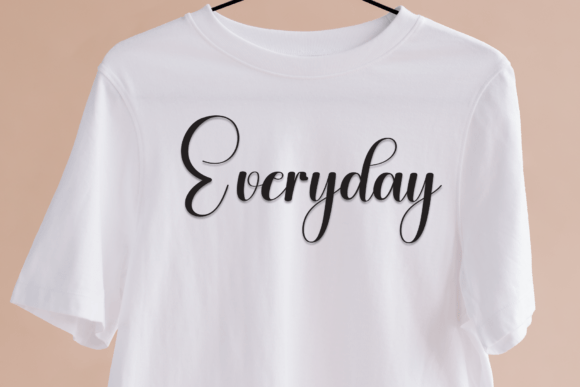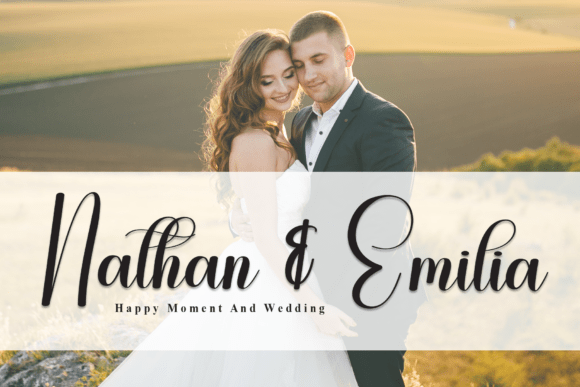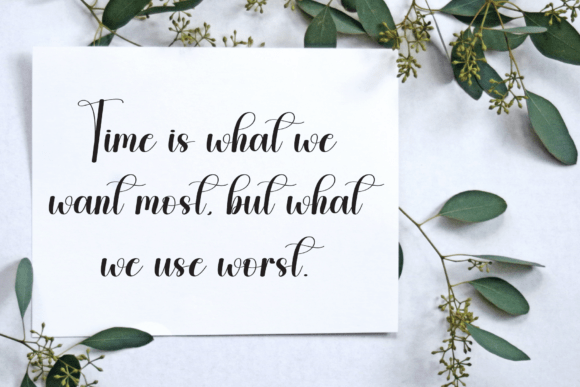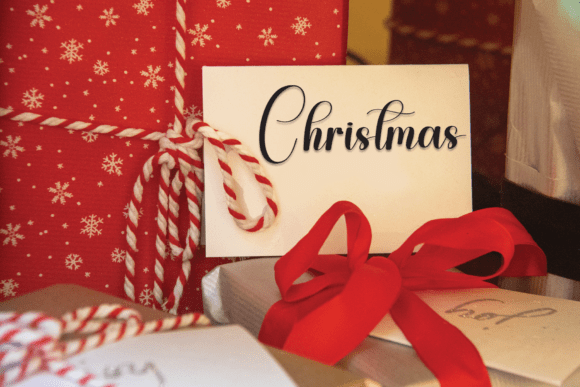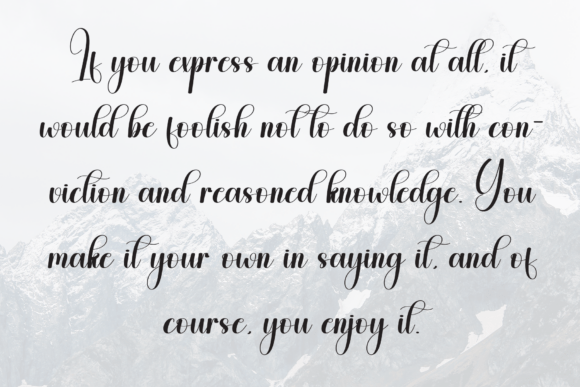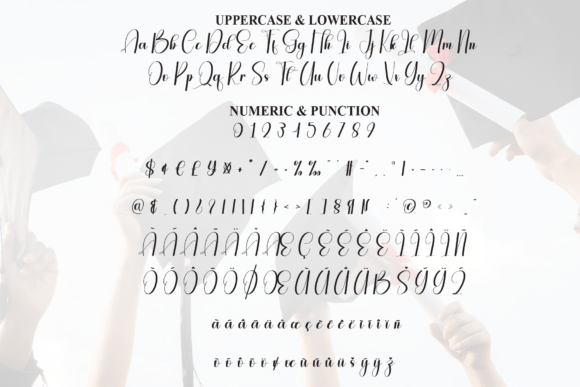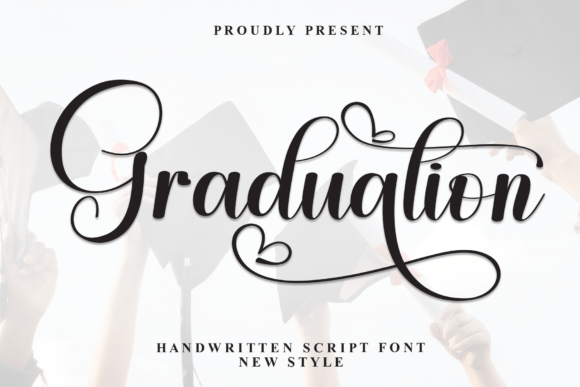
Introducing the Ultimate Graduation Font for Creative Projects
Are you a designer, crafty person, or someone who loves to add a personal touch to their projects? Look no further! Our Graduation Font is here to take your creative endeavors to the next level. With its unique and stylish letters, this font is perfect for various applications, from wall displays and wedding invitations to social media posts, logos, advertisements, and more.
What Makes Our Graduation Font Special?
Our Graduation Font is designed to provide you with an extraordinary experience. The latest style letters are carefully crafted to add a touch of elegance and sophistication to your projects. Whether you’re working on a wedding invitation, a product design, or a social media post, this font is sure to impress.
Endless Possibilities with Our Graduation Font
The versatility of our Graduation Font is one of its standout features. You can use it for:
- Wall displays and signage
- Social media post logos and graphics
- Advertisements and marketing materials
- Product packaging and design
- Labels and branding
- Photography and watermarks
- Stationery and letterheads
Why Choose Our Graduation Font?
Our Graduation Font is designed to provide you with a hassle-free experience. With its:
- Unique and stylish letters
- Wide range of applications
You can focus on creating stunning projects without worrying about the font. Our Graduation Font is perfect for designers, crafters, and anyone who wants to add a personal touch to their work.
Tips and Tricks for Using Our Graduation Font
To get the most out of our Graduation Font, here are some tips and tricks:
- Experiment with different colors and textures to add depth to your projects
- Use the font in combination with other fonts for a unique look
- Play with font sizes and styles to create visual interest
- Use the font for both digital and print projects